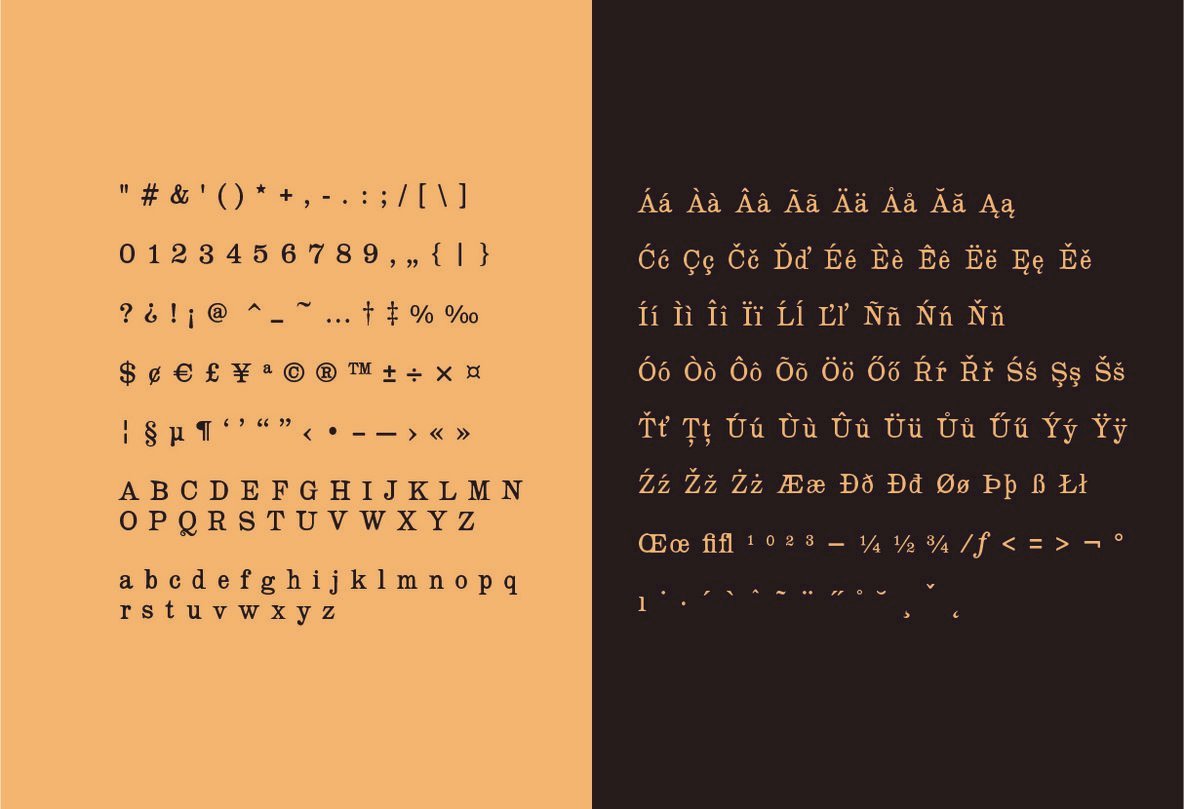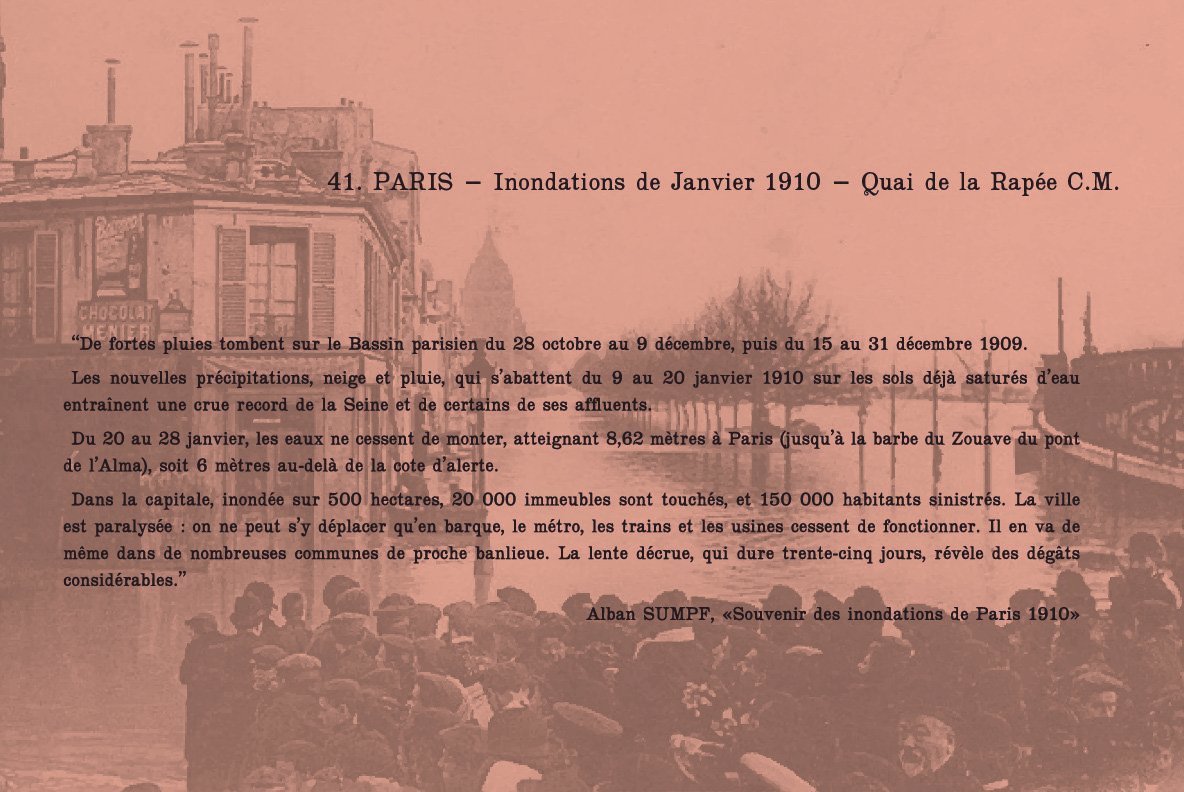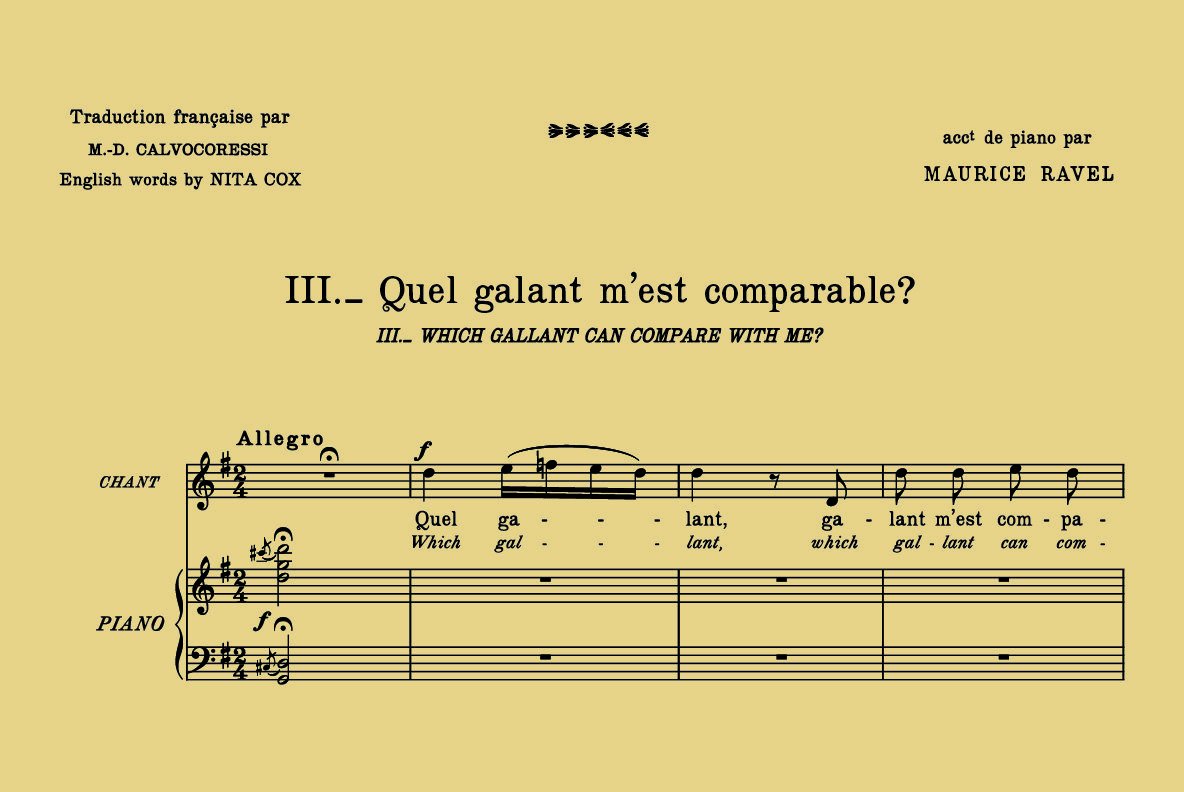
Roman Ionic Font
Roman Ionic
Roman Ionic is a unique revival of a typeface that was once popular and used in many late 19th century and early 20th century music publishing houses, such as Durand et fils. It displays a happy marriage between the beautiful features of the Clarendon type and the legibility of the Scotch roman class and is thus aimed to work for titling and body text.